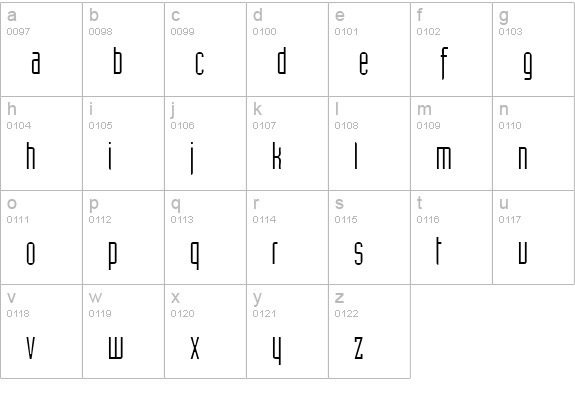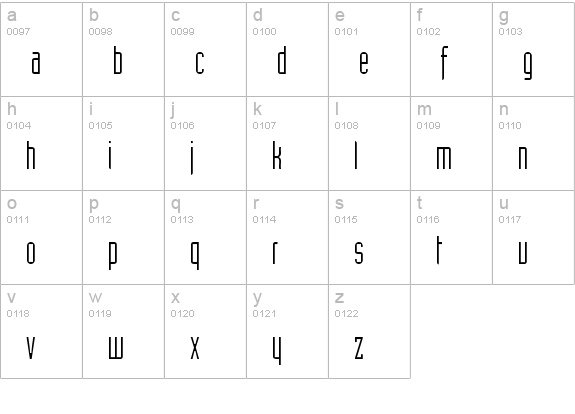
AssemblyLightSSK Font Details
AssemblyLightSSK is a sleek and modern sans-serif font designed to bring a touch of elegance to your projects. With its clean lines and sophisticated appearance, this typeface is perfect for a wide range of design applications, from branding to editorial design. This font features a light weight that exudes a sense of clarity and sophistication, making it ideal for conveying a sense of refinement and professionalism. Whether you are creating a logo, website, or printed materials, AssemblyLightSSK offers versatility and style that will elevate your designs. Best of all, AssemblyLightSSK is available for free download at FontsMarket.com. So, you can easily access this exceptional font to enhance your creative projects without any cost. Don't miss out on this opportunity to elevate your designs with the timeless elegance of AssemblyLightSSK.